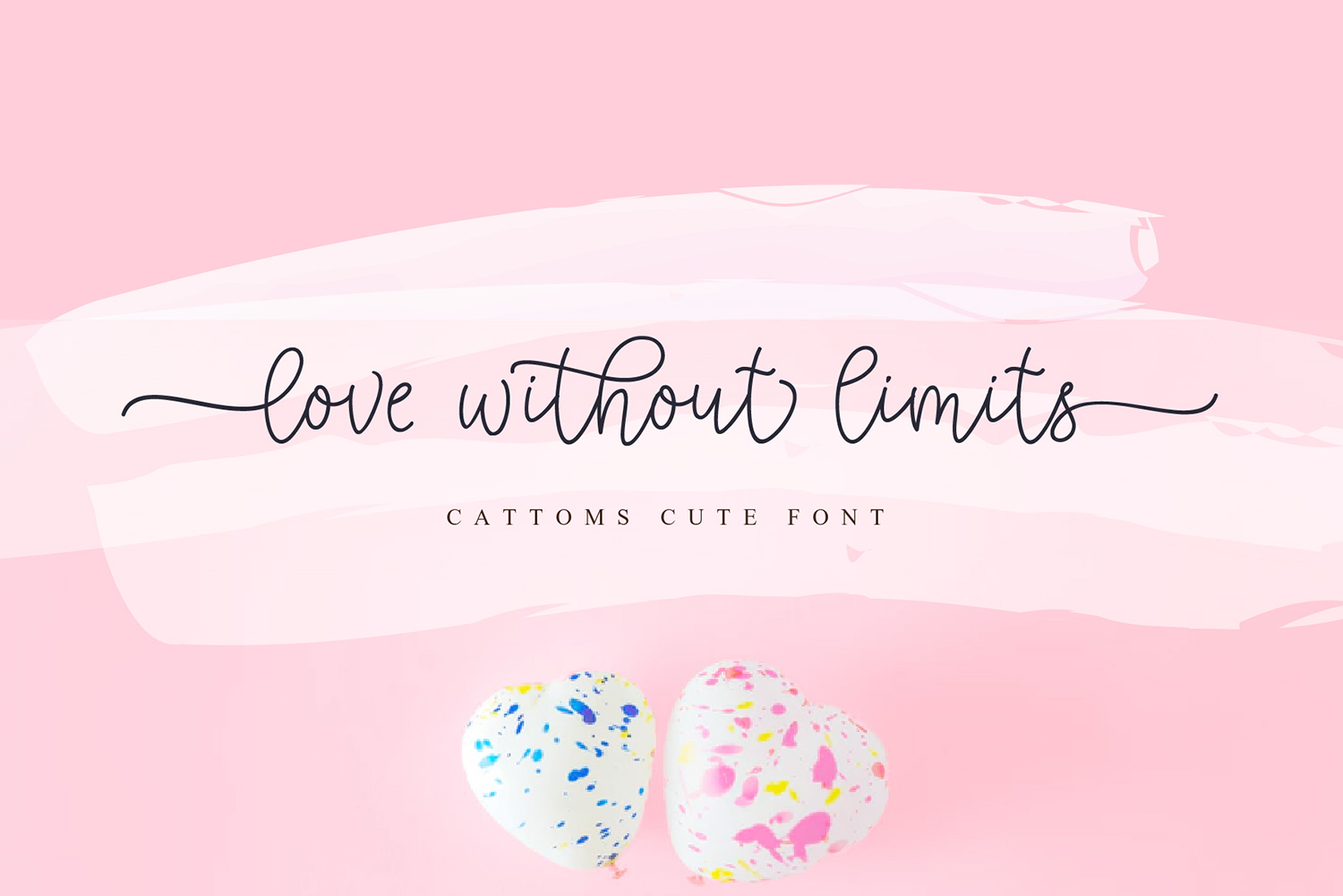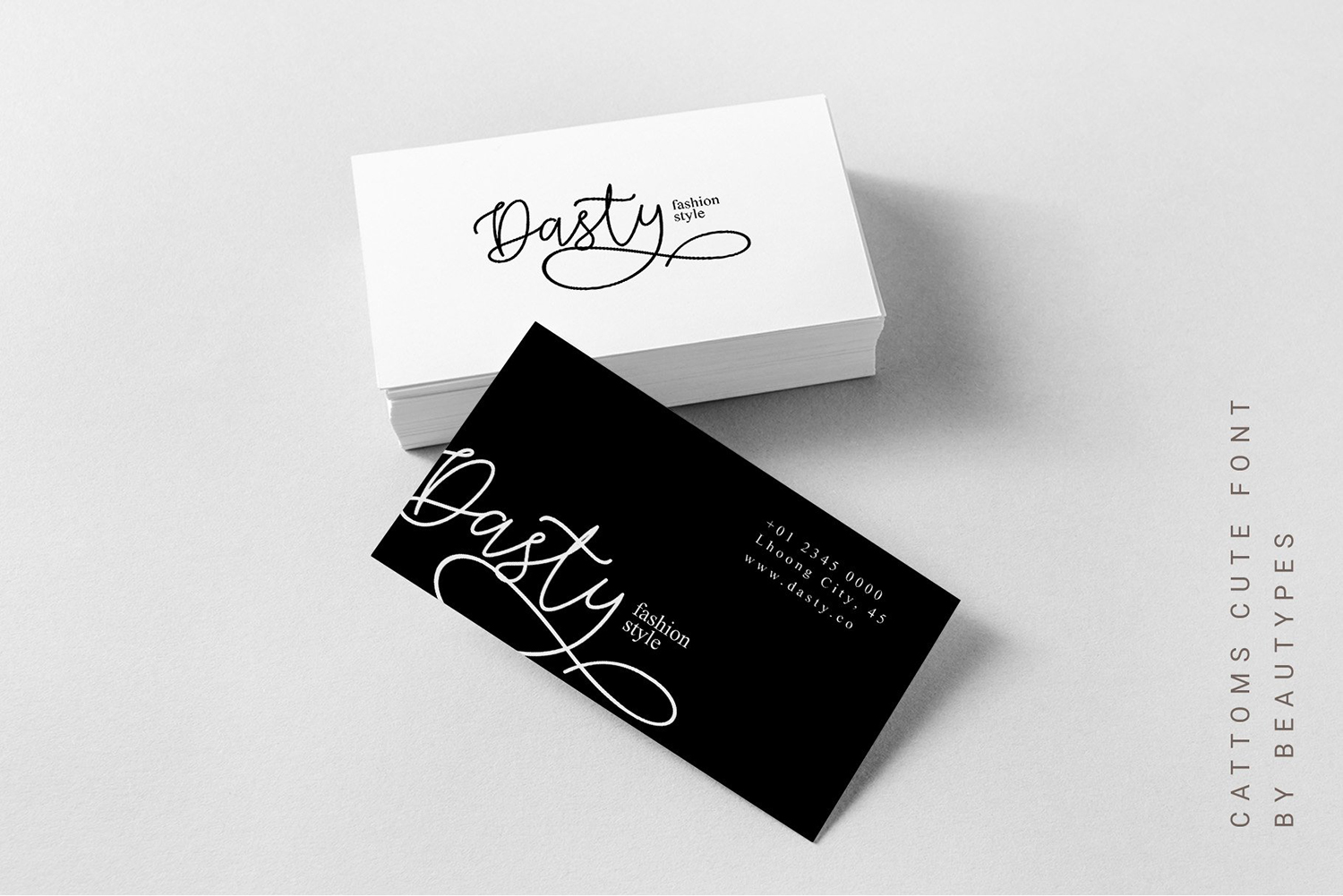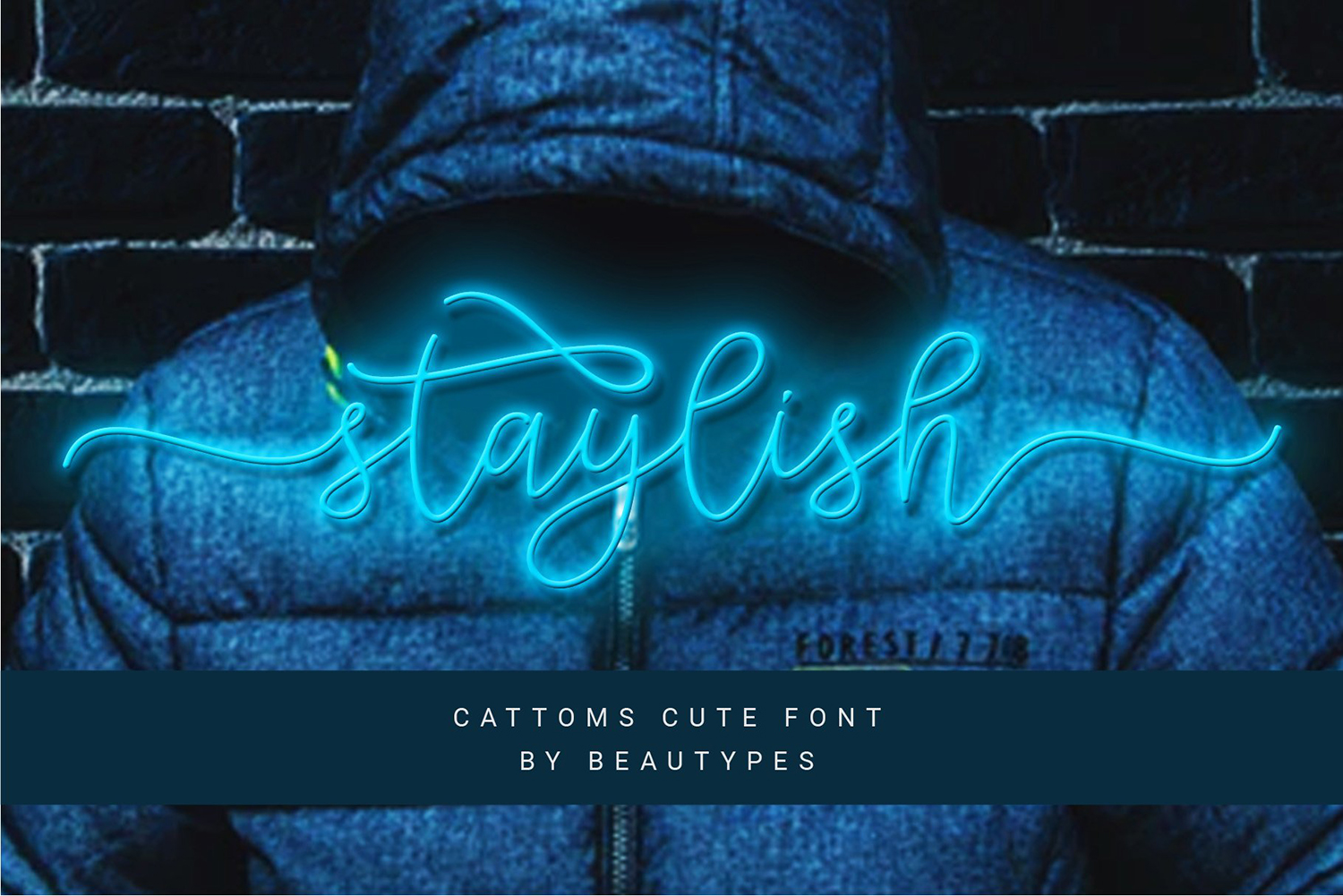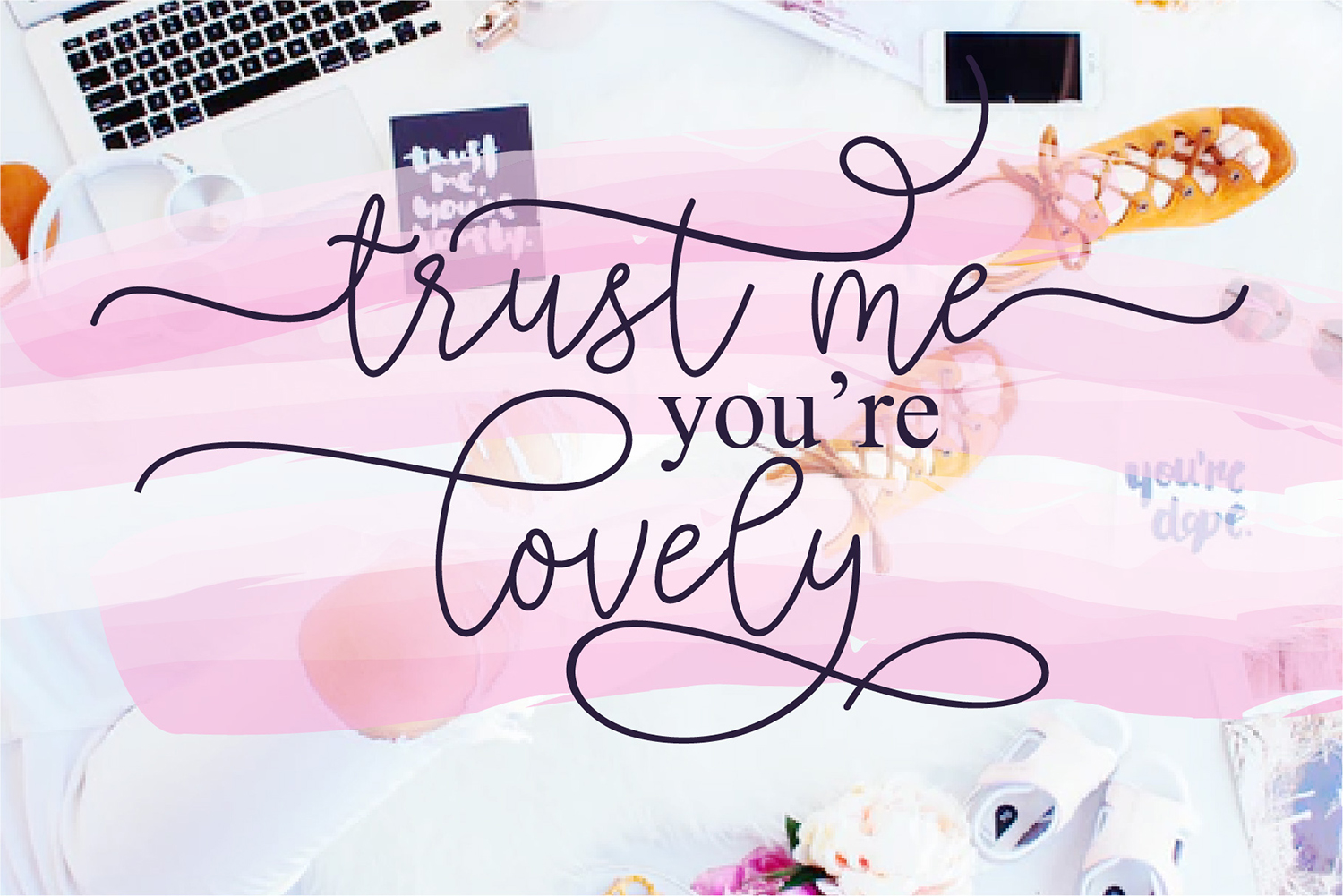
Cattoms Cute Free Font
Cattoms Cute Free Font embodies a charming handwritten font, exuding an irresistibly adorable and whimsical vibe. Delight in its delicate authenticity and broad range of distinct characters. This free typeface was designed by a talentedΒ Beautypes Studio. If you like it don’t forget to check out the full version.